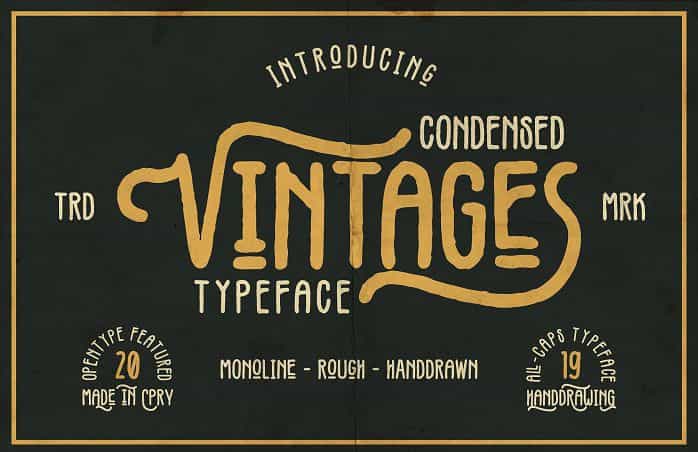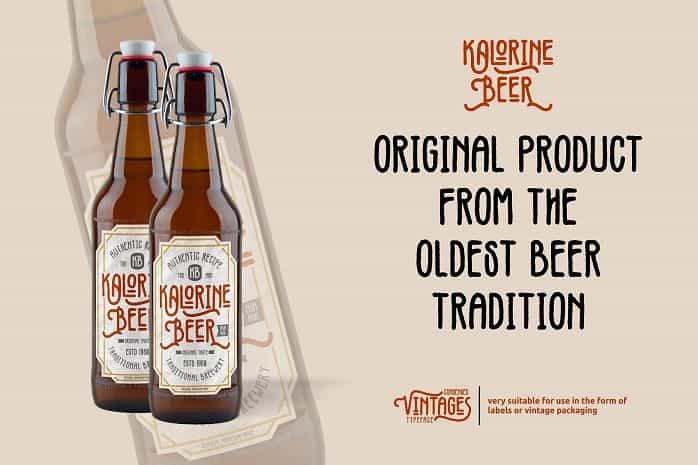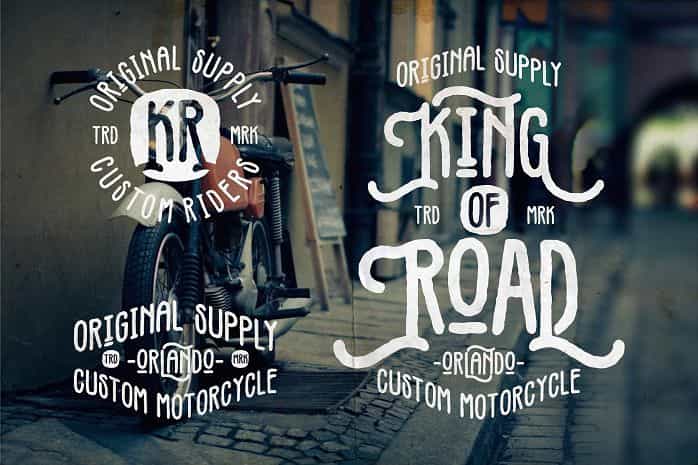
Introducing Vintages Font. VINTAGES is a modern vintage monoline display typeface which is handmade and has all caps character pairing, this style combines the classic typography with a modern hand-drawn one. You can use it for many projects, such as a logo type, handlettering, branding, label design t-shirt design and poster.